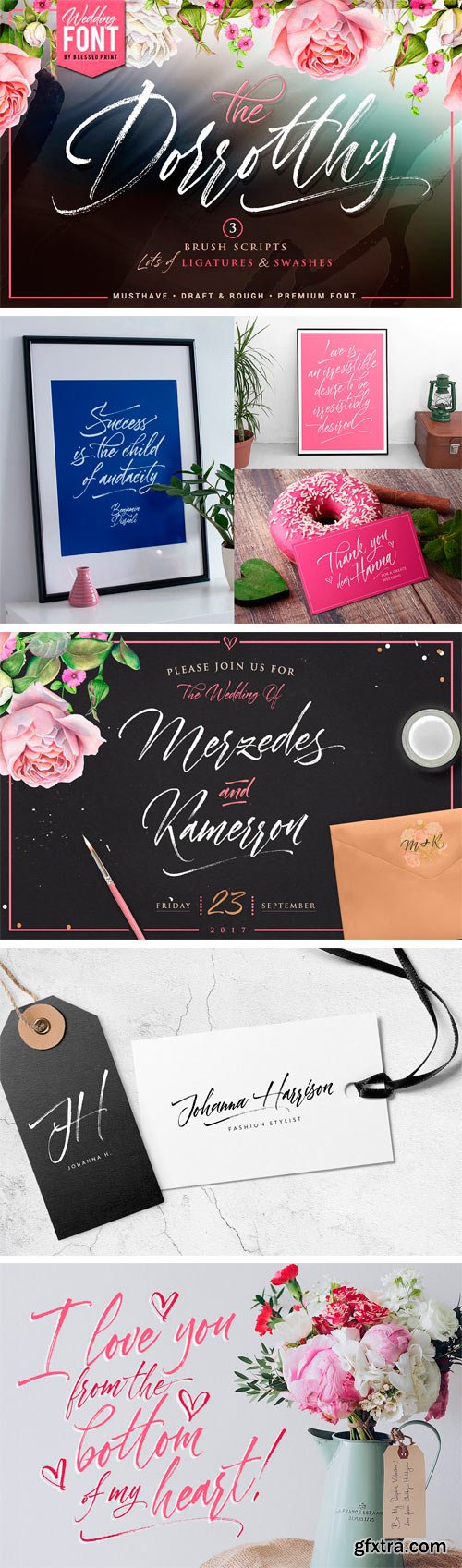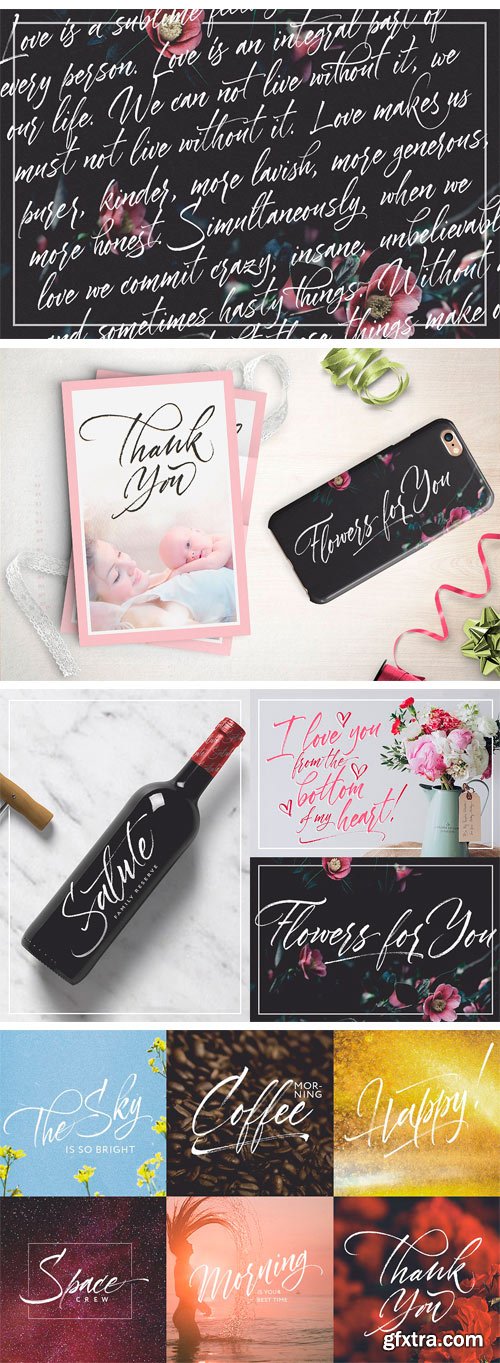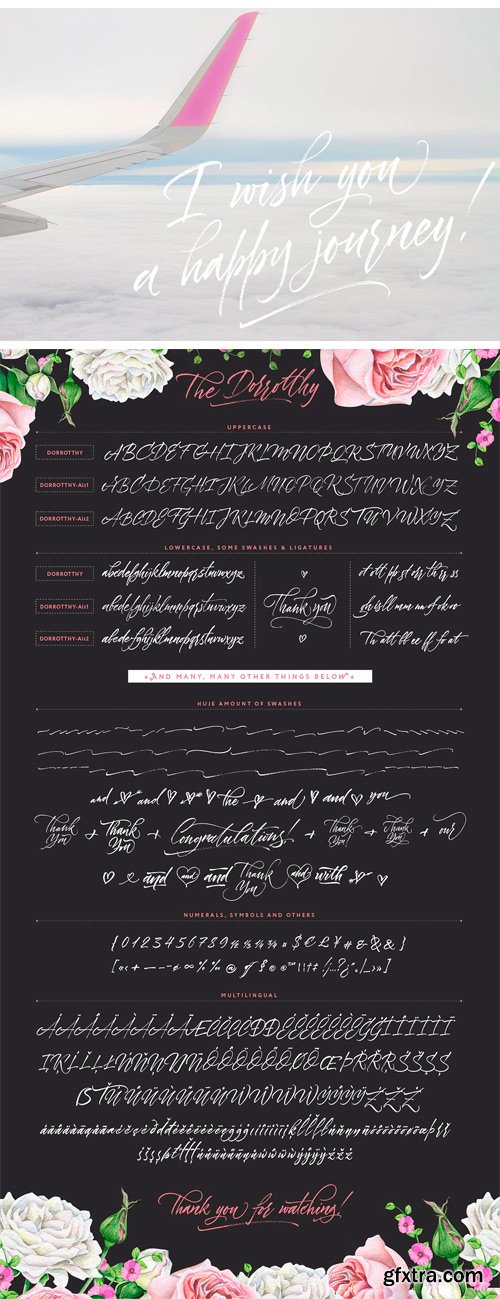
CM 1380885 - Dorrotthy Script: 3 Fonts & Swashes
Welcome to The Dorrotthy. Premium quality handwritten font with elegant imperfections. It includes 3 individual fonts full of alternates and ligatures with a collection of swashes. Dorrotthy script was originally drawn by a professional calligrapher Eugene Spizhovy in collaboration with BlessedPrint. All glyphs include maximum of texture imperfections with italic rough appearance. It is perfect for branding, logos, wedding invitations and inspirational quotes.